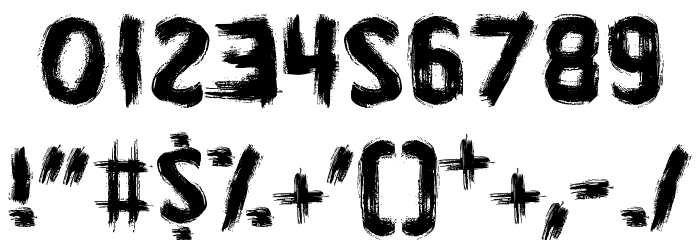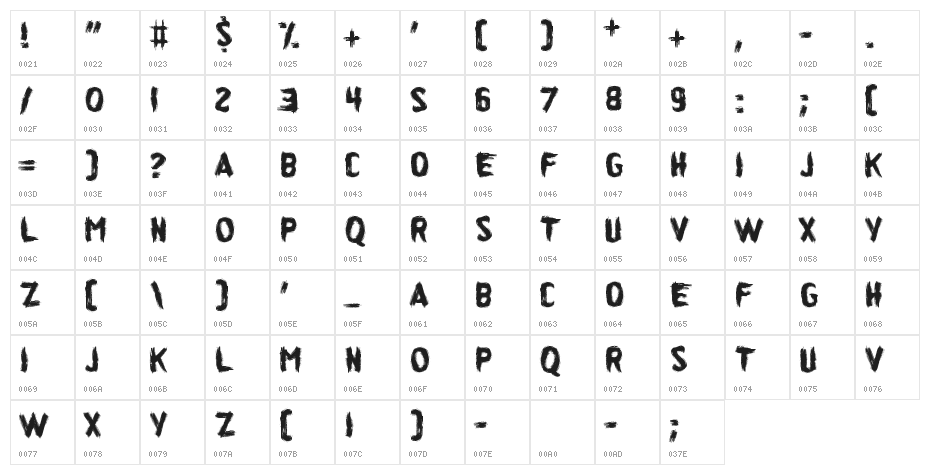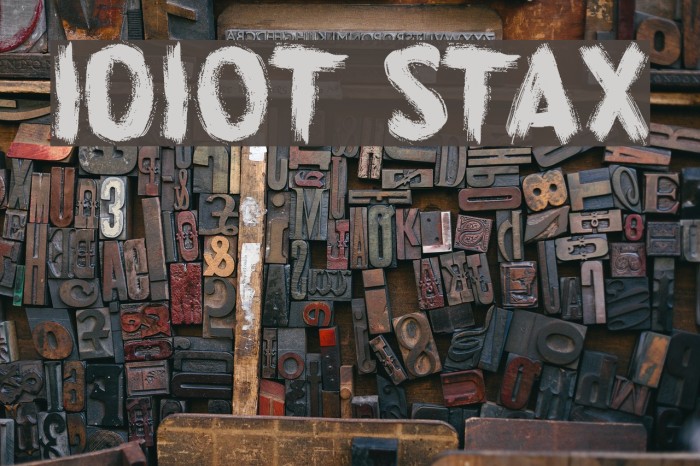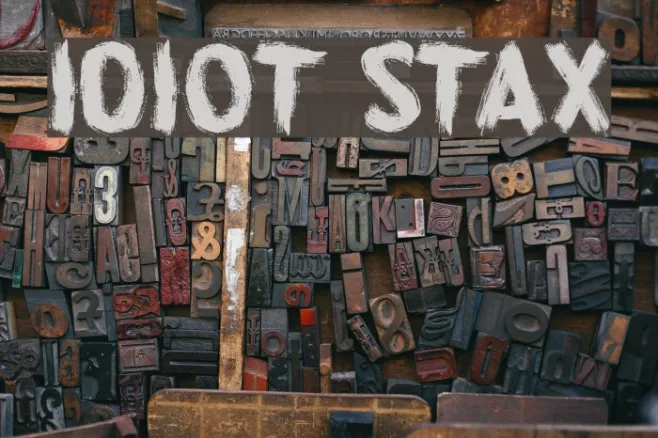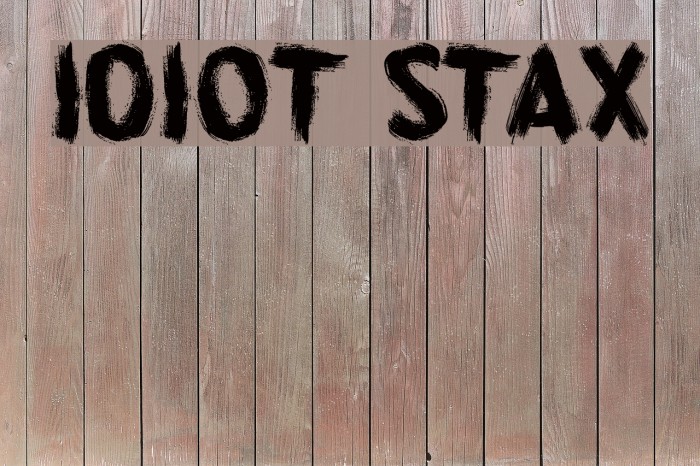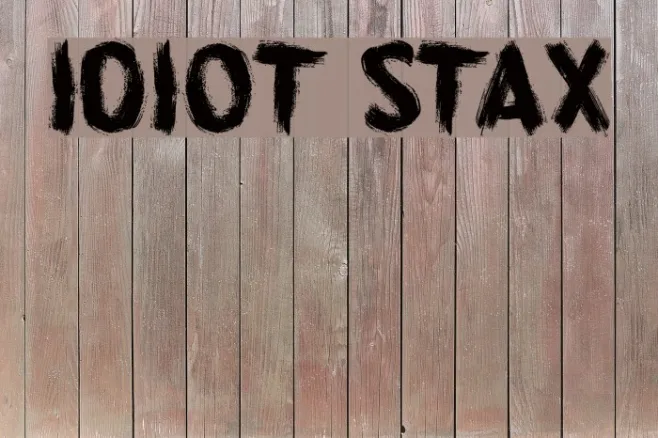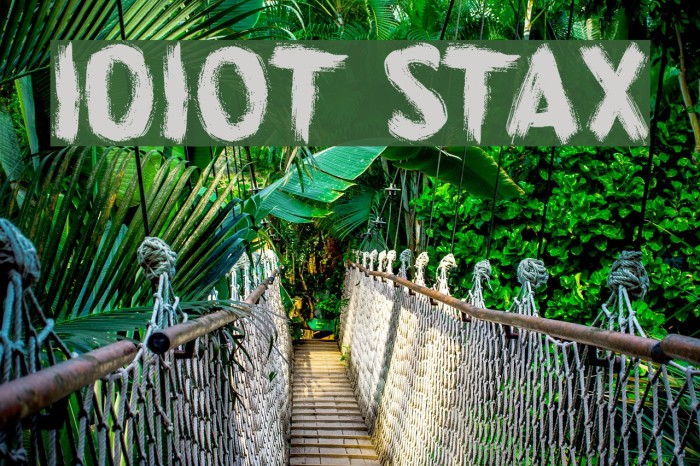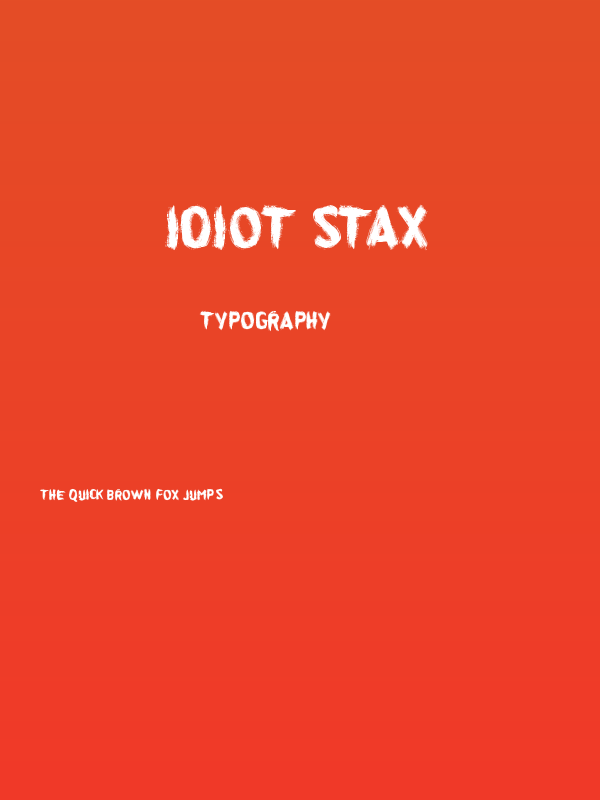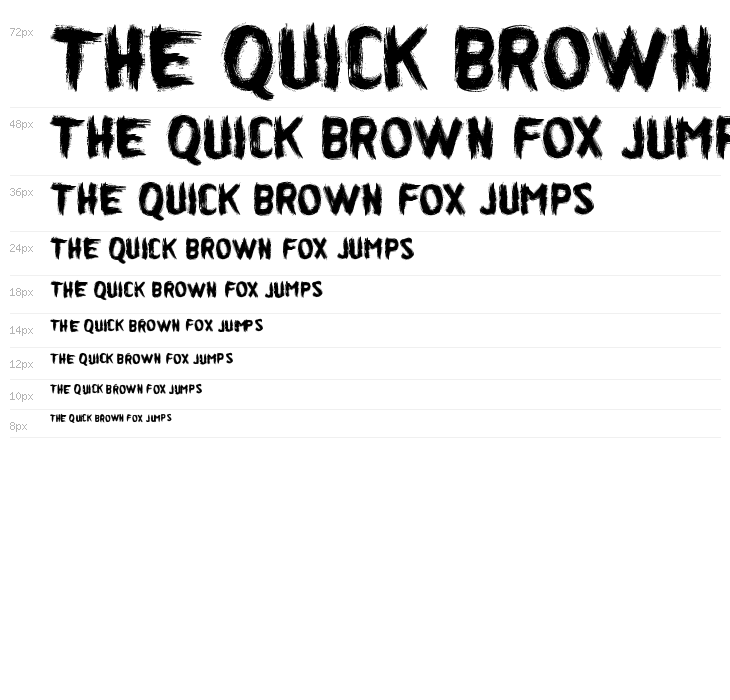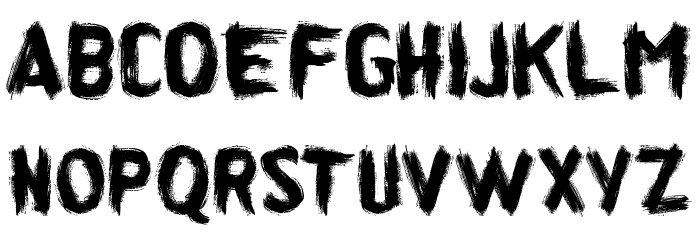
Idiot Stax Font
Idiot Stax Description
This font features a bold, brush-stroke style that gives it a dynamic and energetic appearance. The characters are heavily textured, resembling hand-painted letters with rough edges and varying thickness. This creates a sense of movement and spontaneity, making it ideal for projects that require a bold and artistic touch. The uppercase and lowercase letters maintain a consistent style, while the numbers and special characters complement the overall aesthetic. The font's unique texture and style make it stand out, perfect for creative and eye-catching designs.
| Proposed Projects | Ideal for posters, album covers, graffiti art, and any project needing a bold, artistic flair. |